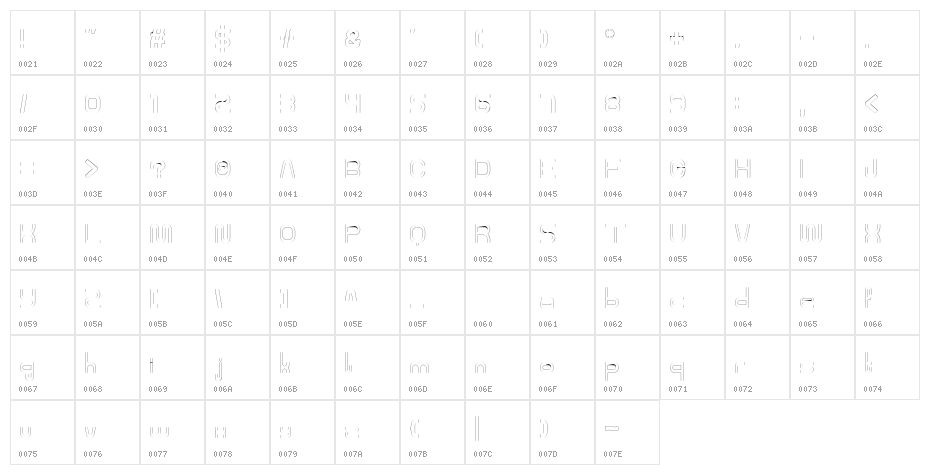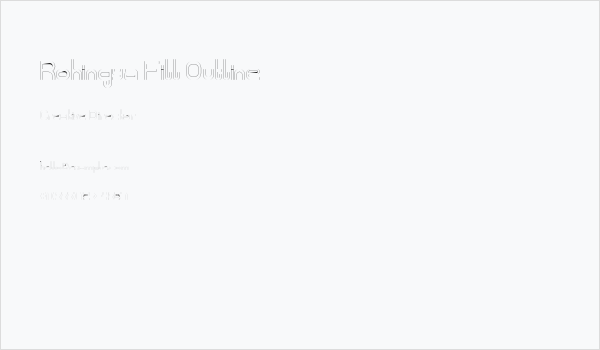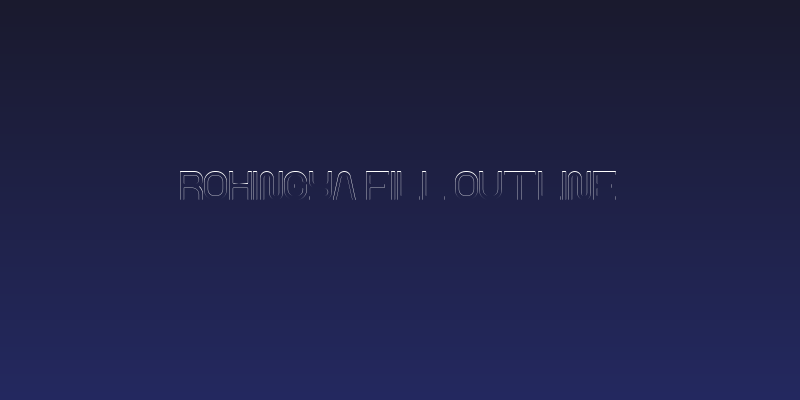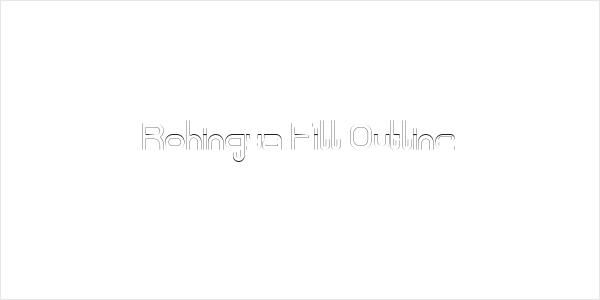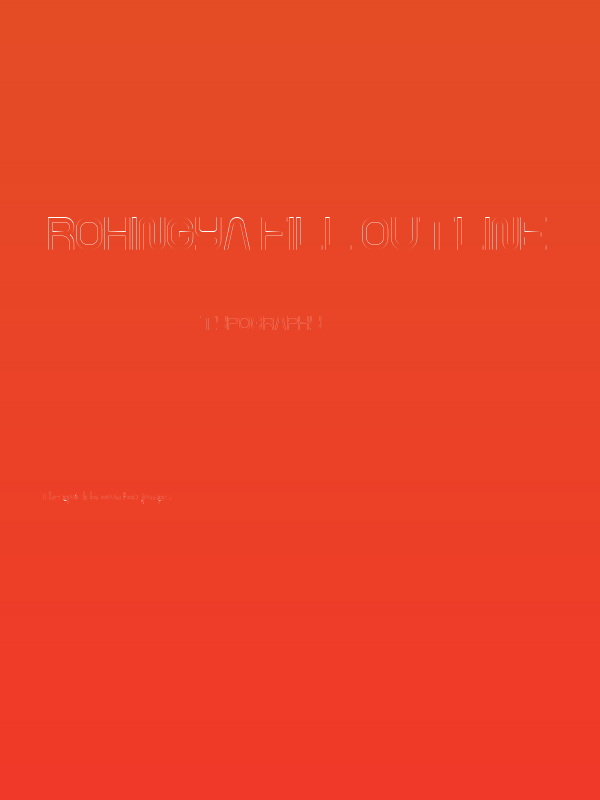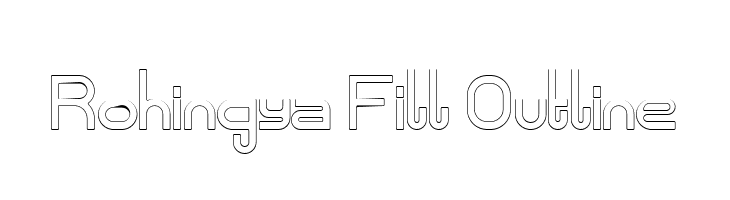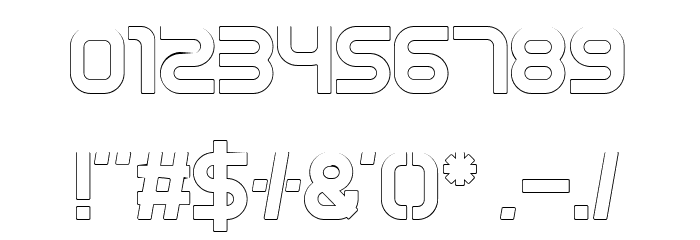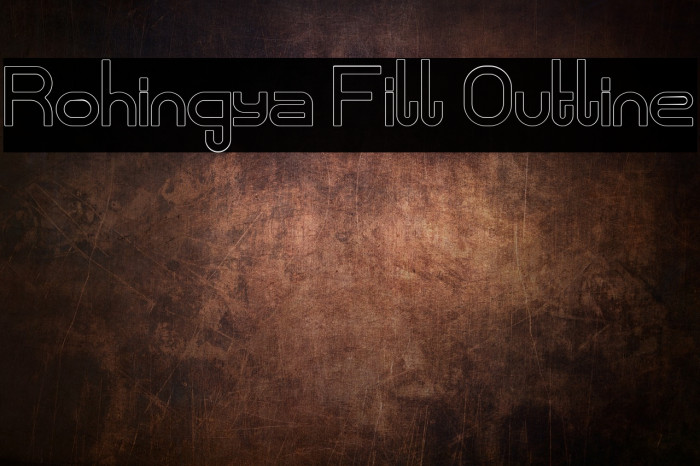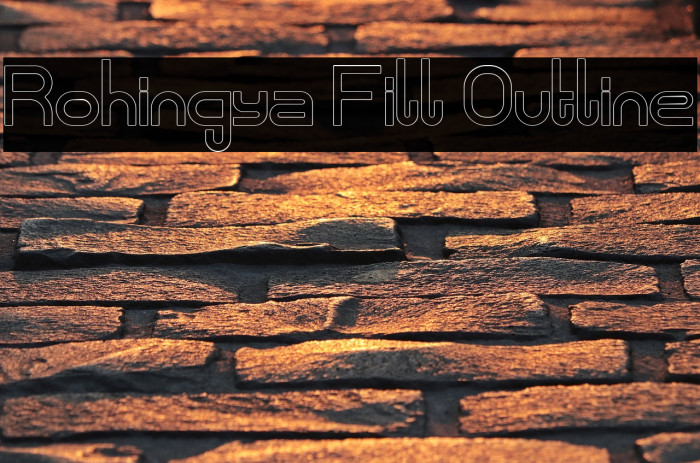
Rohingya Fill Outline Font
Rohingya Fill Outline Description
This font features a modern and futuristic design with a unique outline style. The characters are constructed with clean, geometric lines that create a hollow effect, giving the font a sense of openness and lightness. The uppercase and lowercase letters maintain a consistent style, with rounded edges and uniform stroke widths. The numerals and special characters are designed to match the overall aesthetic, ensuring a cohesive look across all elements. This font's distinct outline design makes it stand out, offering a contemporary and stylish appearance suitable for various creative applications.
| Proposed Projects | Ideal for use in digital media, branding, posters, and futuristic-themed designs. |